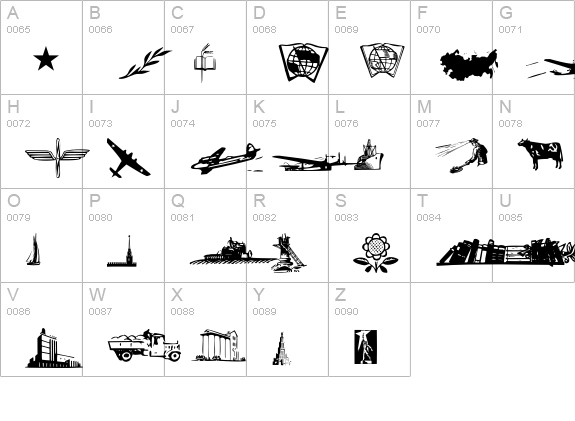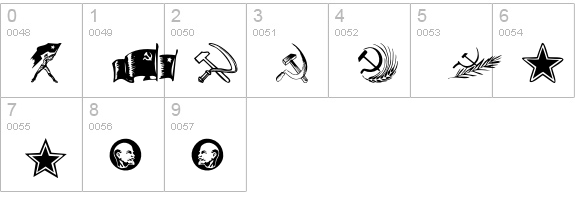
ConstructivistExtras Font Details
Introducing ConstructivistExtras font, a unique and versatile typeface that is sure to make a statement in your designs. This font embodies the spirit of constructivism with its bold lines and geometric shapes, adding a touch of modernity and sophistication to any project. With a wide range of extra characters and symbols, ConstructivistExtras font offers endless creative possibilities for your typography needs. Whether you're working on a poster, logo, or website, this font will help you stand out from the crowd and make a lasting impression. Best of all, ConstructivistExtras font is completely free to download at FontsMarket.com. So why wait? Add this striking font to your collection today and take your designs to the next level.